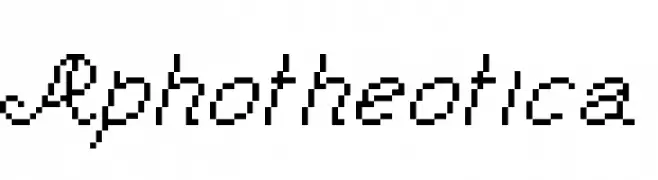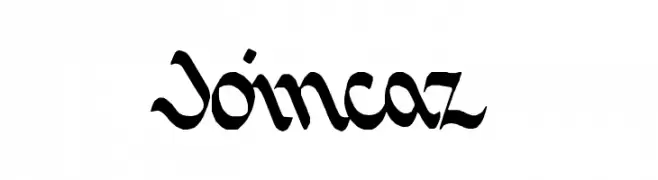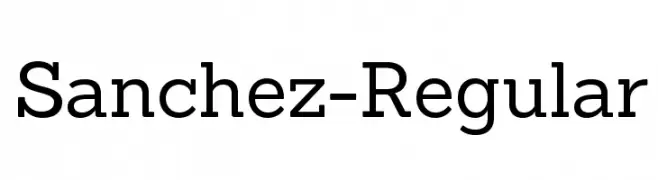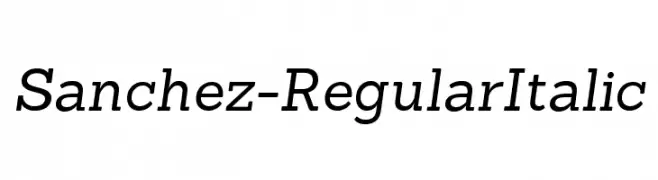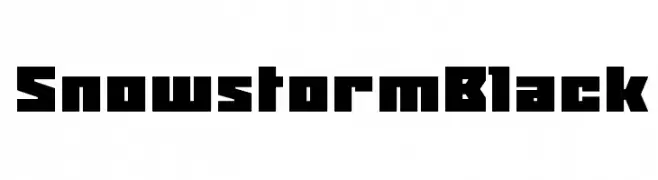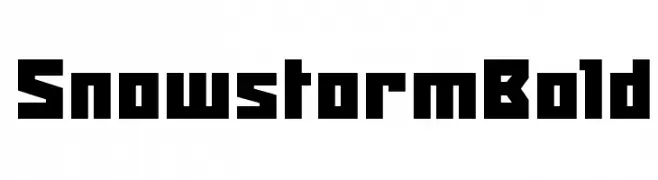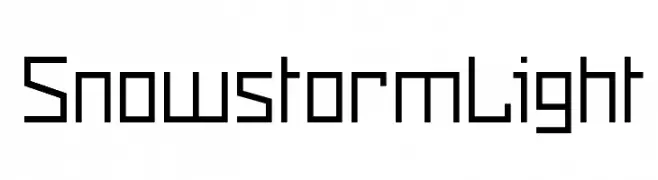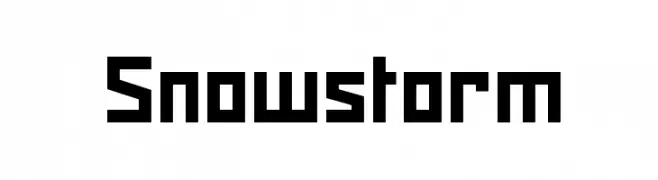
( Denis Sherbak - yavlenie.com )
A geometric, modern font with clean lines and sharp angles.
( Denis Sherbak - yavlenie.com )
A bold, geometric font with sharp, angular edges and a strong presence.
( Denis Sherbak - yavlenie.com )
A bold, blocky font with a strong geometric style, perfect for impactful headlines.
( Denis Sherbak - yavlenie.com )
A bold, geometric font with angular lines and a blocky appearance.
( Juan Sanchez )
A bold, calligraphic font with dramatic flourishes and elegant curves.
( Latinotype - Latinotype LTDA - www.latinotype.com )
A modern slab serif font with italic styling and consistent stroke width.
( Latinotype - Latinotype LTDA - www.latinotype.com )
A robust slab serif font with balanced proportions and strong serifs.
( MrtheNoronha - Daniel Noronha )
A decorative font with curly uppercase letters and clean lowercase characters.
( MrtheNoronha - Daniel Noronha )
A pixelated, retro-style font with a blocky, grid-like appearance.
( MrtheNoronha - Daniel Noronha )
A pixelated, blocky font with a retro digital aesthetic.